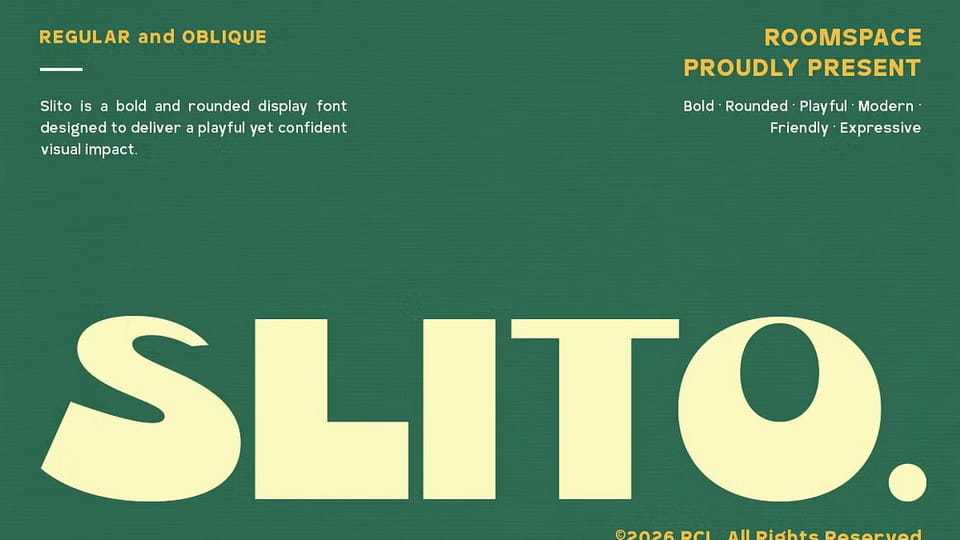
Download Slito font, a bold rounded display typeface designed to deliver a playful yet confident visual impact. Featuring soft curves, wide shapes, and expressive letterforms, Slito brings a friendly modern tone to any creative project.